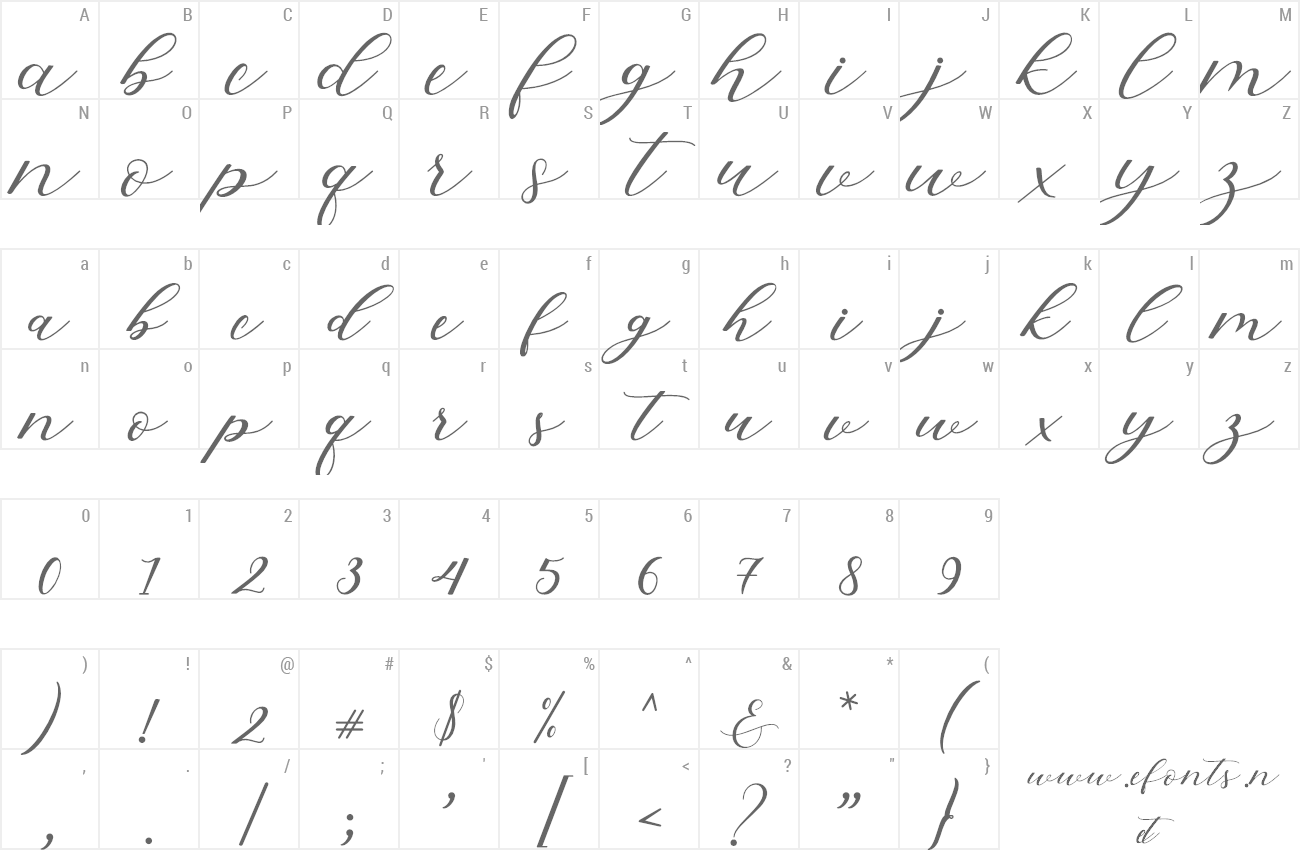
Preview and download Hiters Script Font. Created by Musafir LAB in Script Calligraphy styles with Free for personal use license.
| Font name: | Hiters Script |
| Author: | Musafir LAB |
| Hiters Script " is a modern script font, every letter has been carefully crafted to make your text look beautiful with an elongated connection model. With a modern script style this font will be perfect for various projects, for example: weddings, invitations, greeting cards, posters, business cards, quotes, blog headers, branding, logos, fashion, clothing, letters, stationery, |